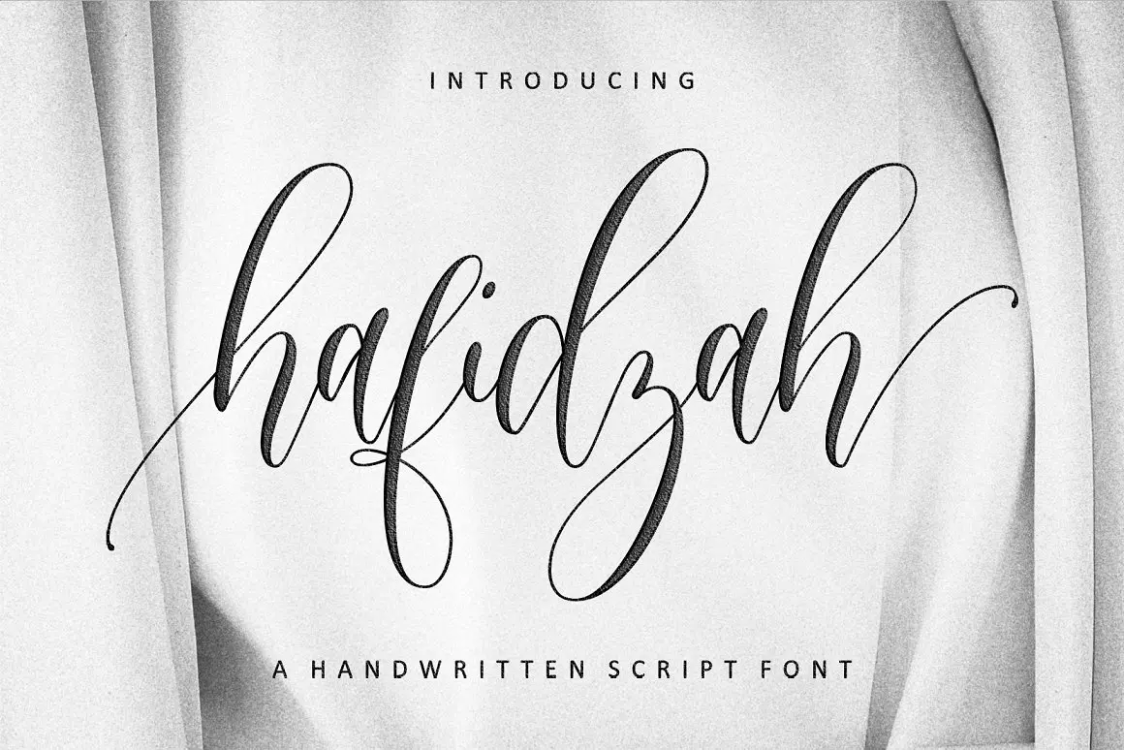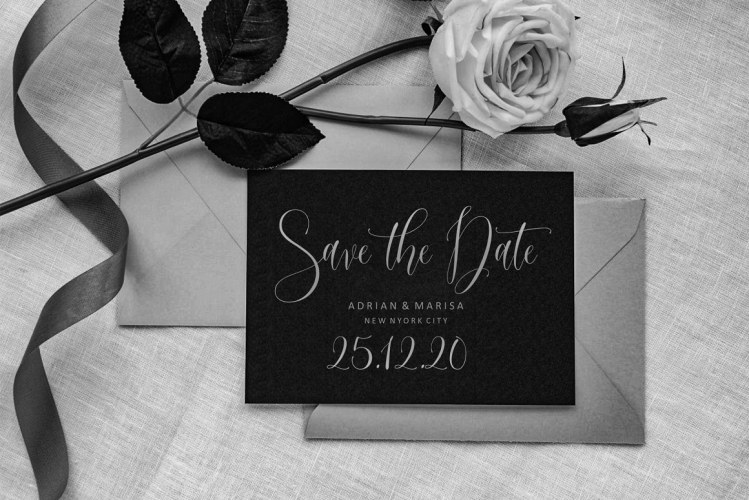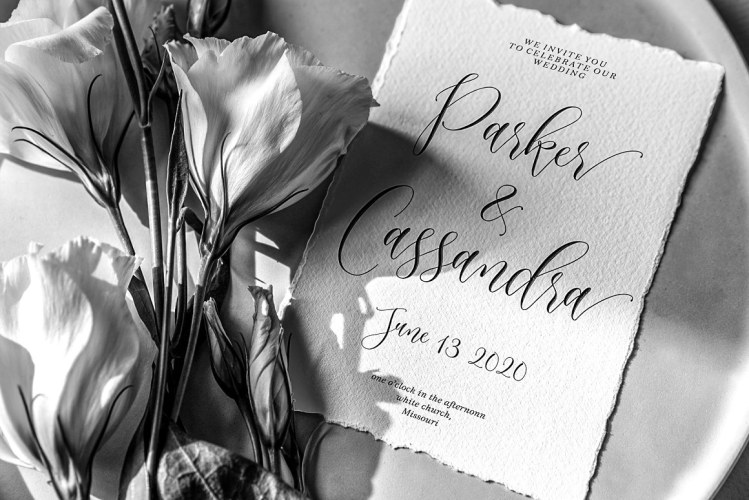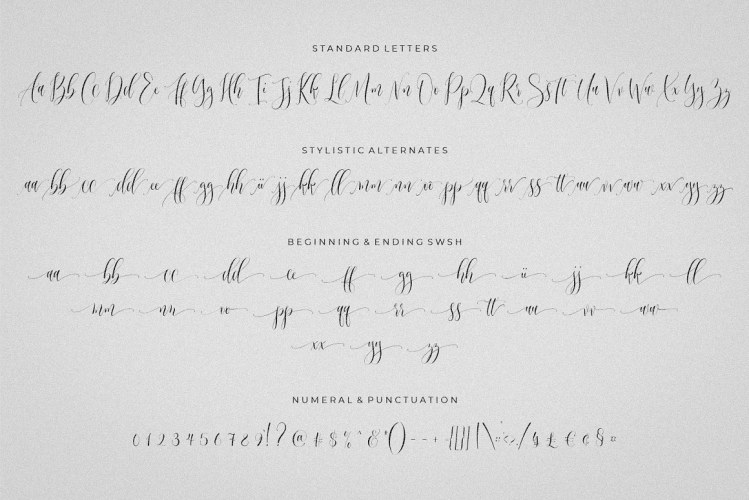
Hafidzah Font
Meet Hafidzah. Hafidzah is a modern calligraphy font that combines traditional calligraphy style with modern type-design techniques. It comes in dashing rounded terminal…
Meet Hafidzah. Hafidzah is a modern calligraphy font that combines traditional calligraphy style with modern type-design techniques. It comes in dashing rounded terminals and structured letters. You’ll especially love working with the decorative and elegant swashes that are included in Hafidzah, which you can use to add a fancy touch to your designs and expand the font’s versatility. Hafidzah is great for a wide range of projects, including logos, wedding invitations, greeting cards, product packaging, and signage. The combination of traditional calligraphy style, modern type design techniques and unique letterforms will give your logo or project a stylish approach. Hafidzah will add individuality and originality to your designs, making them more fun and modern.
Where Hafidzah Font works best
Invitations & certificates
Hafidzah Font lends ceremony to wedding suites, certificates and formal announcements.
Luxury branding
Calligraphic scripts work for boutique hotels, jewellery and bridal brands.
Quotes & wall art
Popular for printable quotes, wall art and greeting cards.
What is Hafidzah Font good for?
Hafidzah Font is a Calligraphy Fonts typeface tagged Calligraphy, Calligraphy Fonts, Classic, Elegant. It works well for headlines, logos, posters, social media graphics and branding projects that need a distinctive calligraphy fonts look.